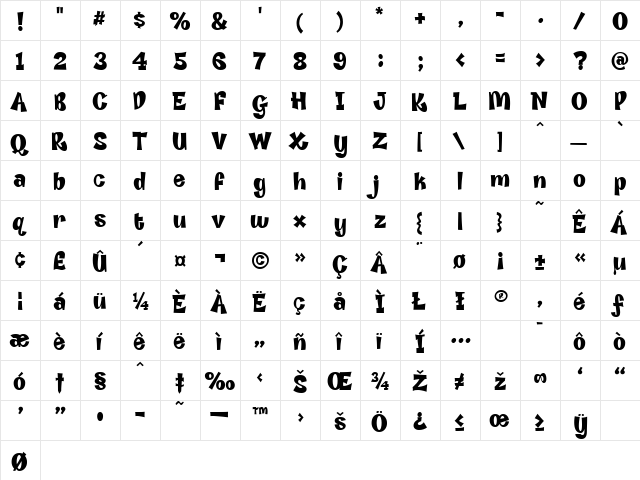
Godfrey Regular
Design Context for Godfrey Typeface
Godfrey is a composed and adaptable typeface that performs quietly and consistently across a wide range of design contexts.